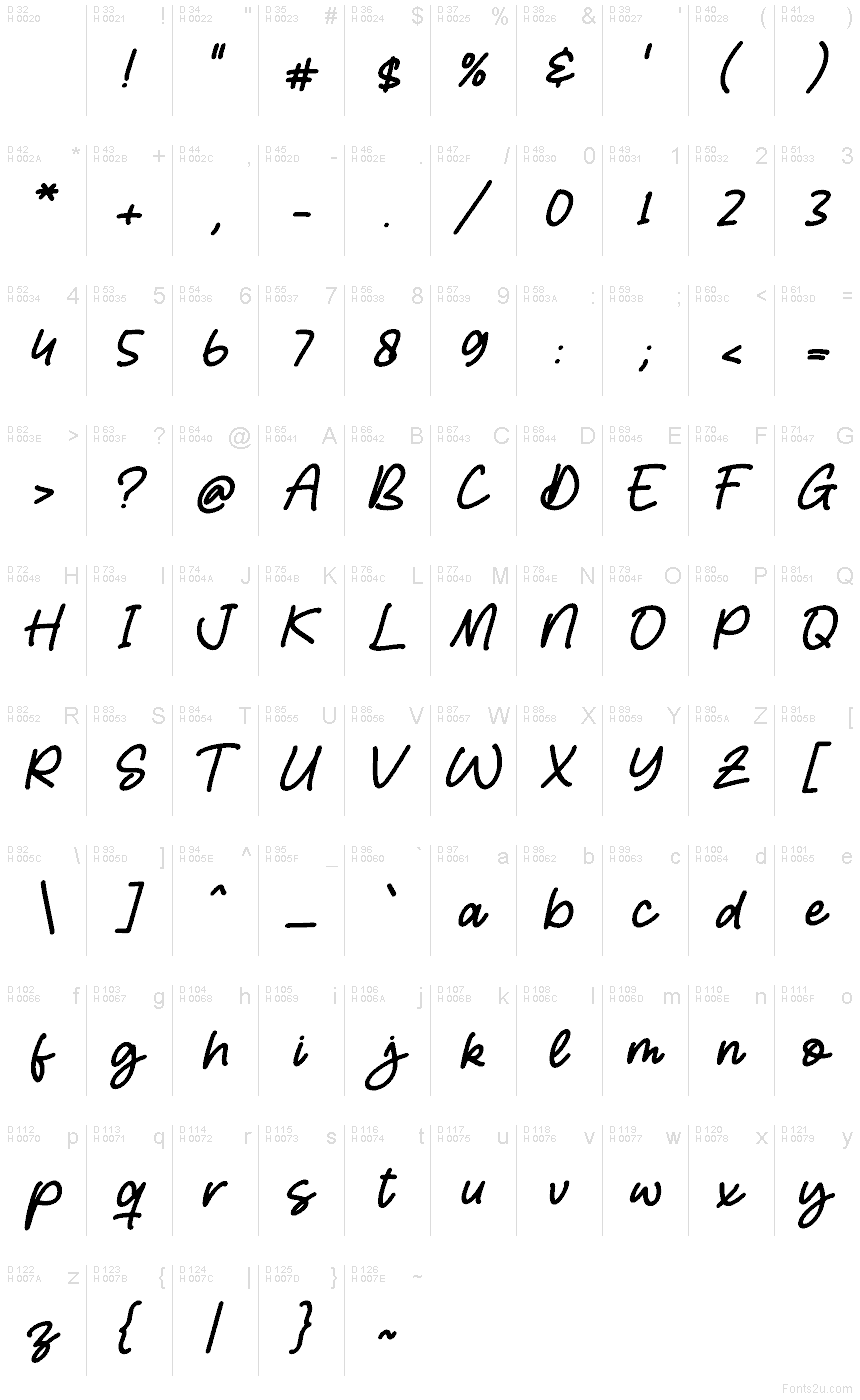
Remonade Italic
Remonade Italic font by Perspectype Studio - Letterena.com is a free handwritten script typeface with a warm, easygoing flow. Its smooth, inky strokes and rounded curves feel like a quick note dashed off with a favorite marker—confident, legible, and a little playful. The looping connections and steady slant give the Remonade family a relaxed rhythm that still reads clearly at a glance, even when the letters are quite bold and juicy.
Using Remonade Italic, this free font shines on drink labels, café menus, bakery packaging, Instagram posts, quote graphics, and friendly brand logos. The handwriting style brings a human touch to mockups and small-business branding, especially when you keep headlines big and roomy. Pair this script with a clean sans serif for body text to ground the energy and let the Remonade Italic forms stay in the spotlight.